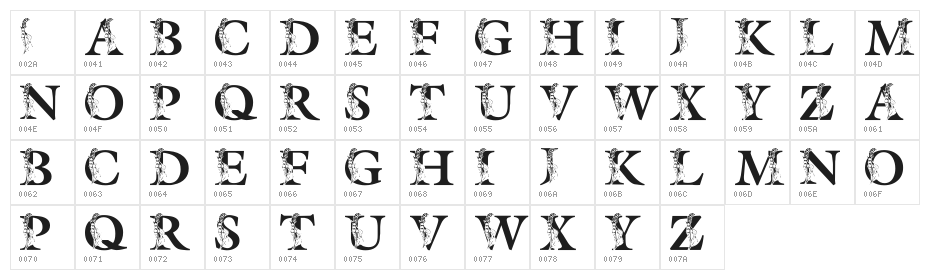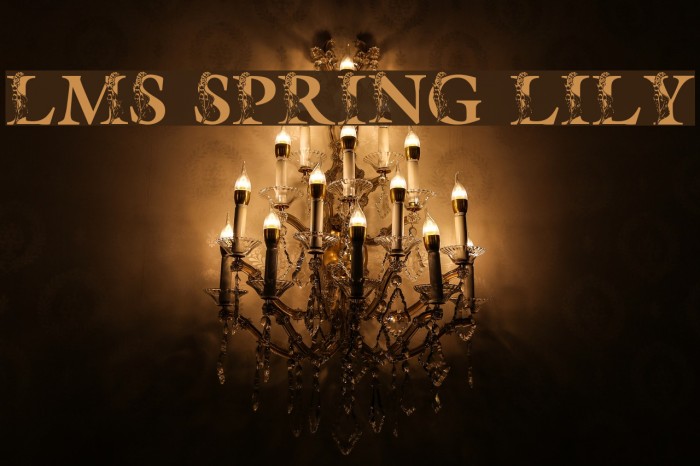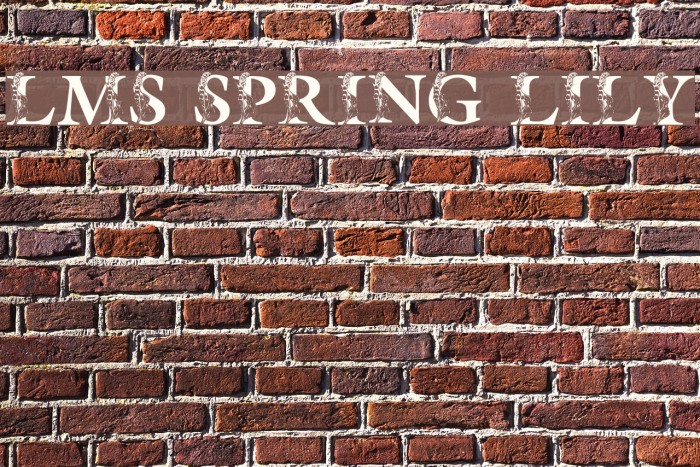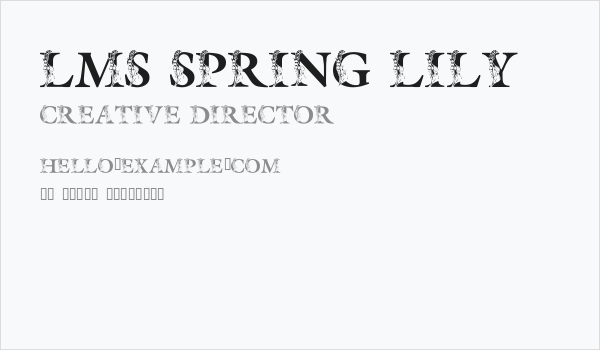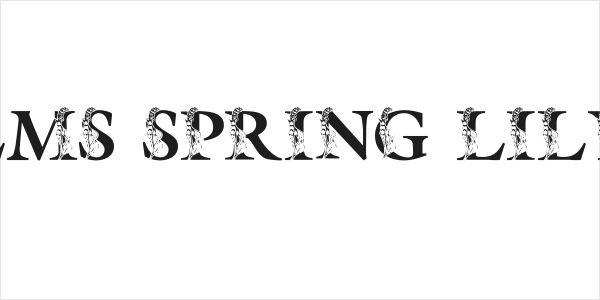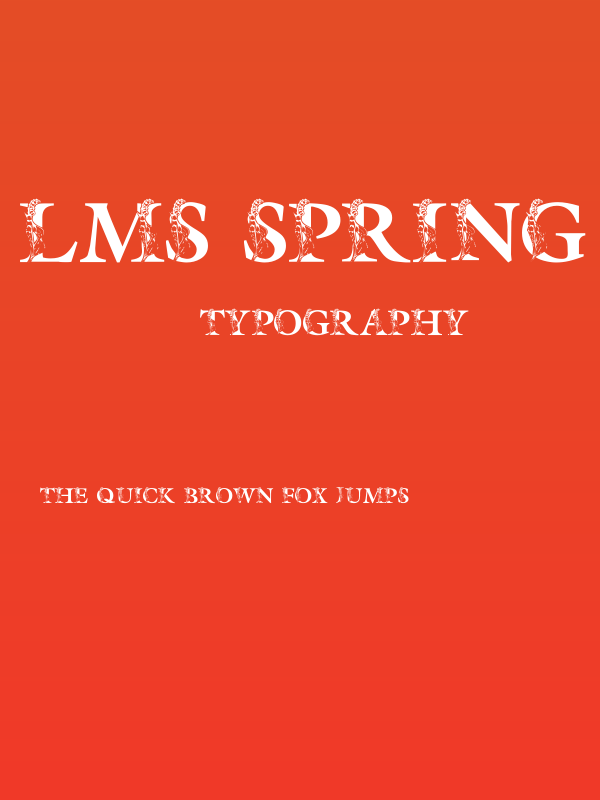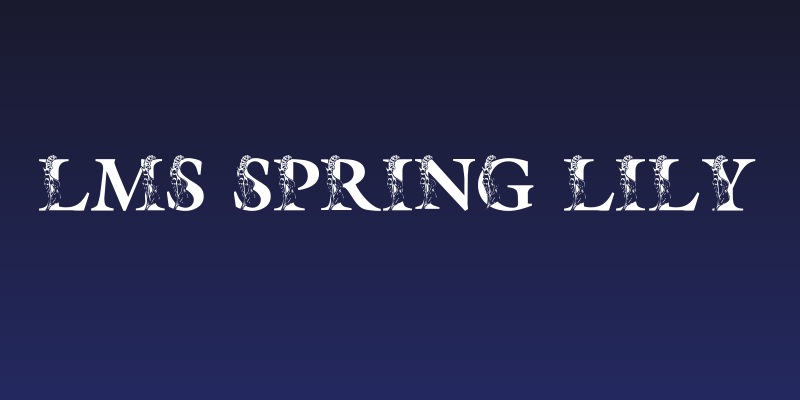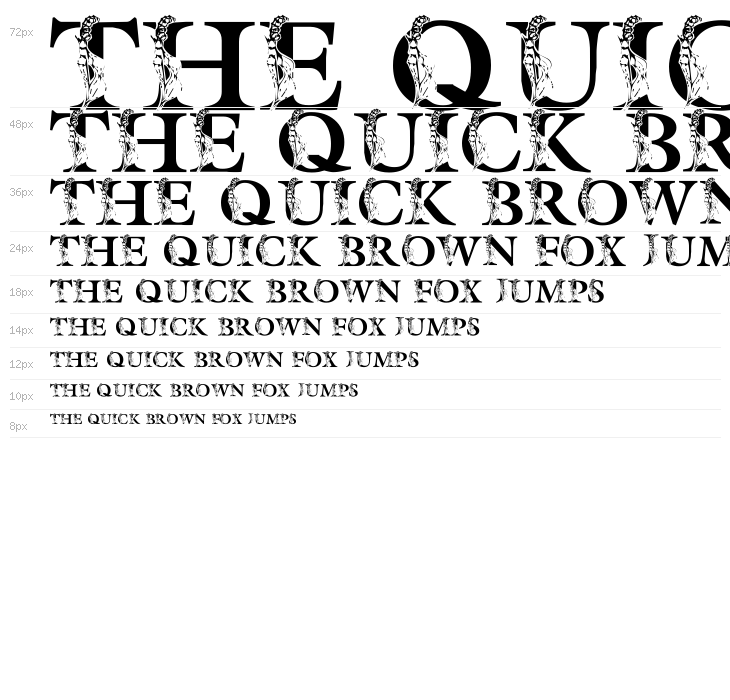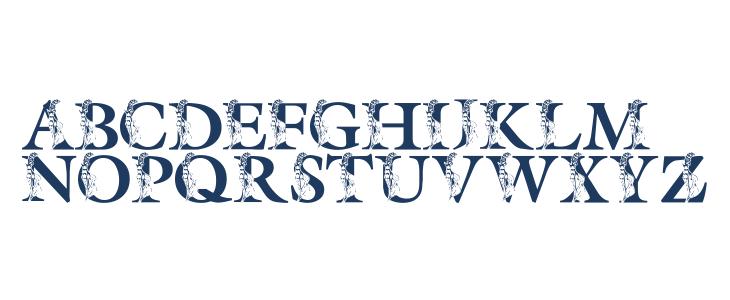
LMS Spring Lily Font
LMS Spring Lily Description
This font features an intricate and decorative style, with floral and vine-like embellishments integrated into the letterforms. The uppercase letters are bold and prominent, showcasing a unique blend of classic serif structures with artistic, nature-inspired details. The embellishments add a sense of elegance and whimsy, making it suitable for creative and artistic projects. The overall appearance is both striking and sophisticated, with a high level of detail that draws the eye.
| Proposed Projects | Ideal for wedding invitations, greeting cards, branding for florists, or any project requiring a touch of elegance and nature-inspired design. |